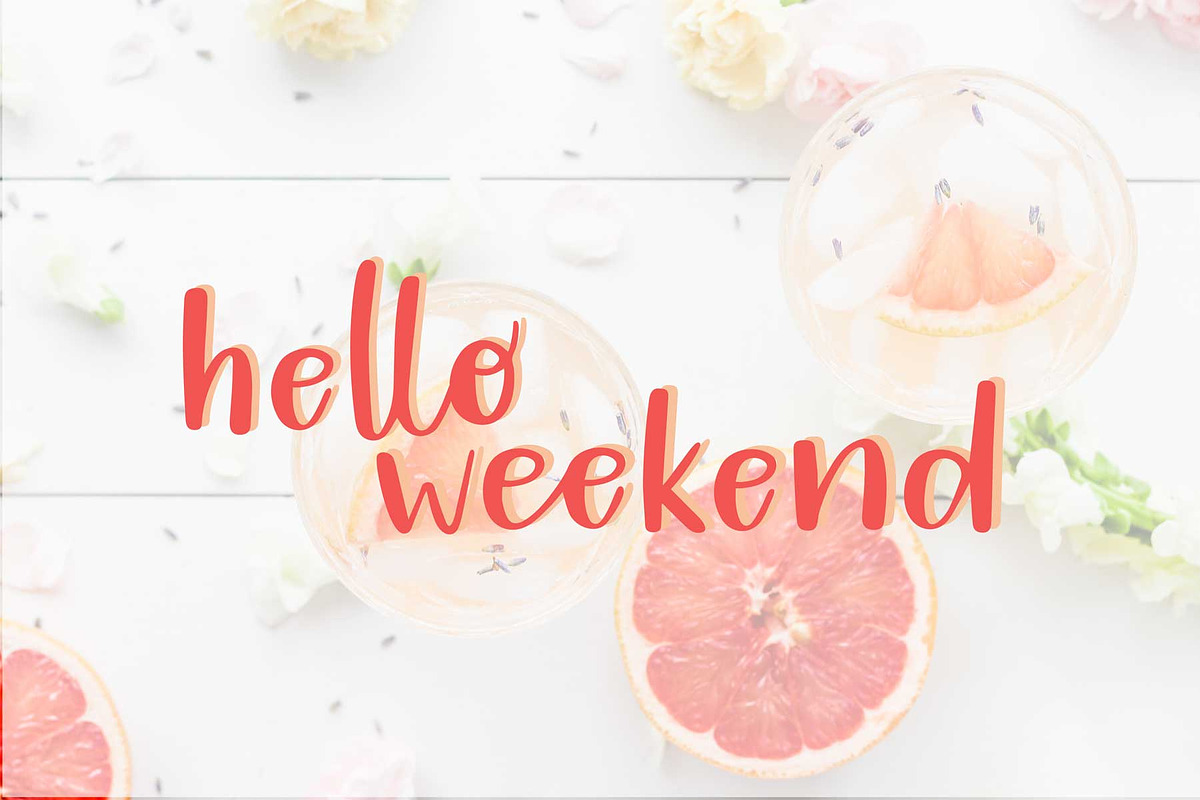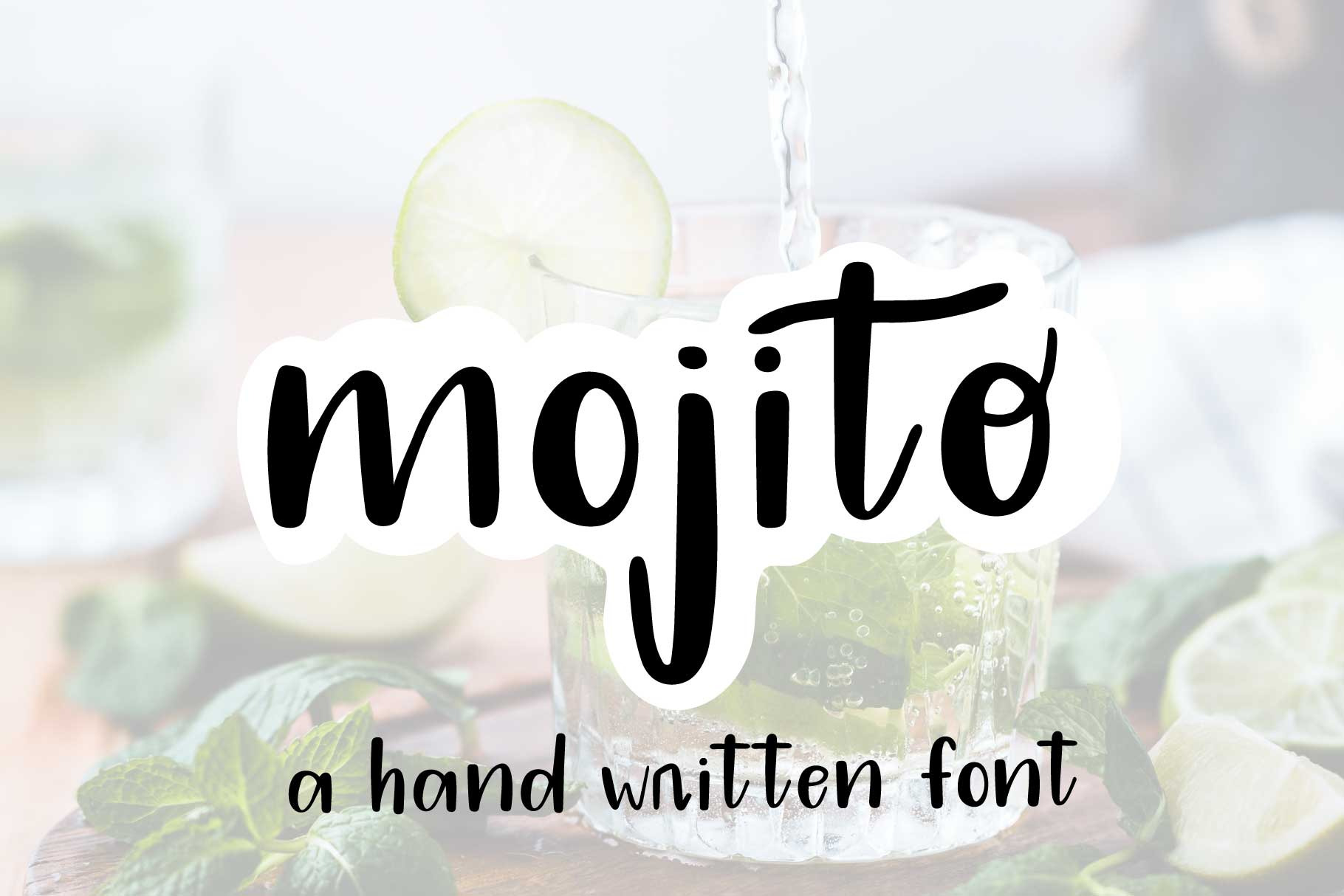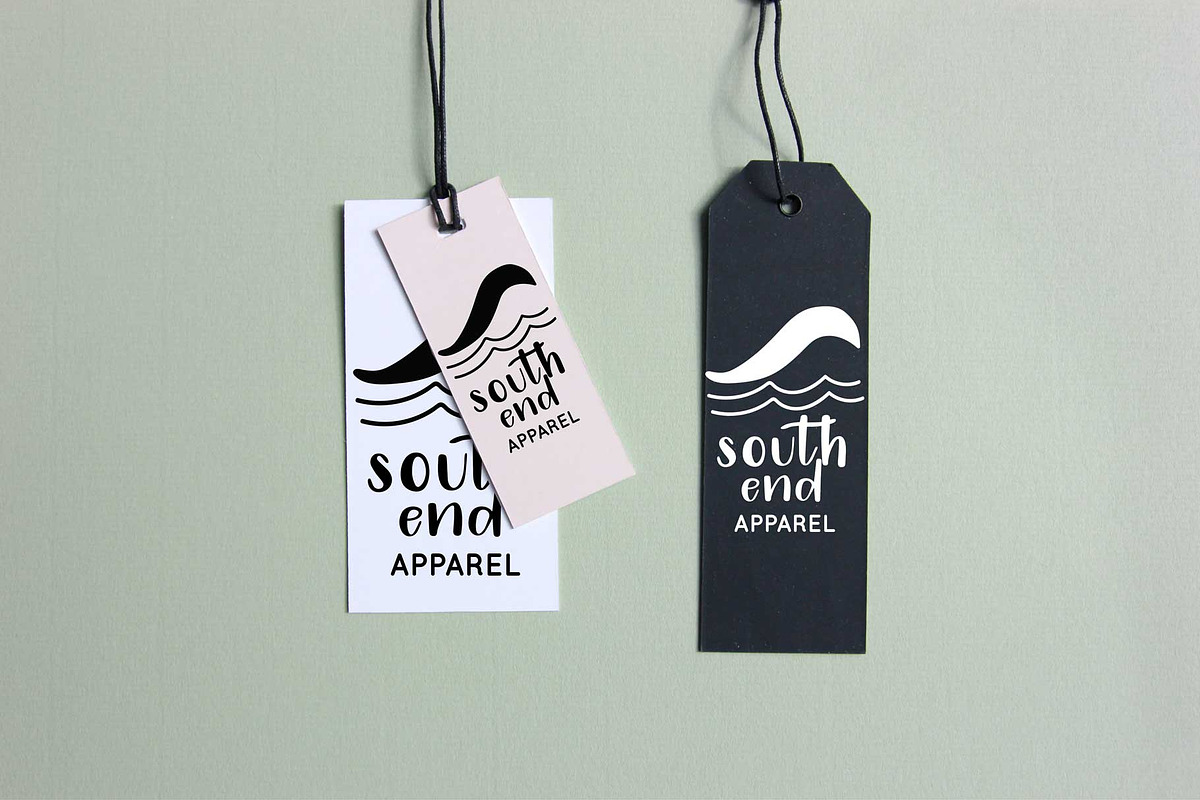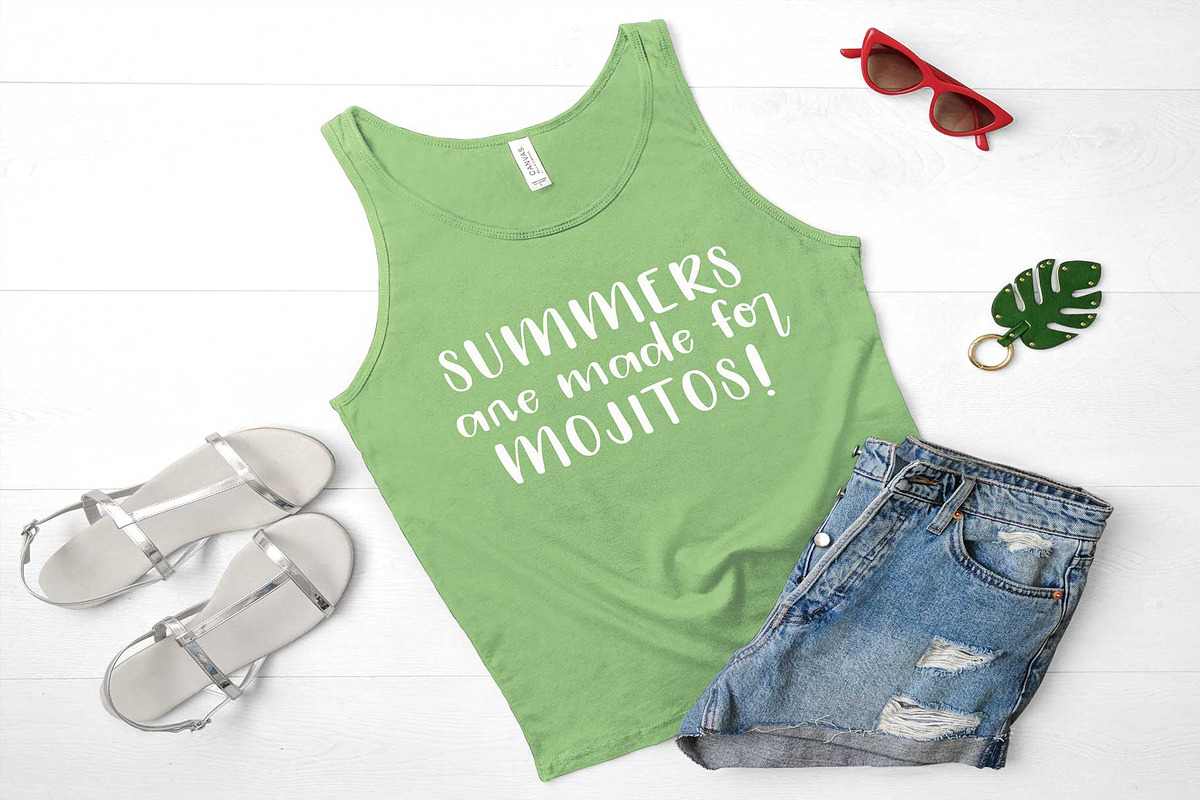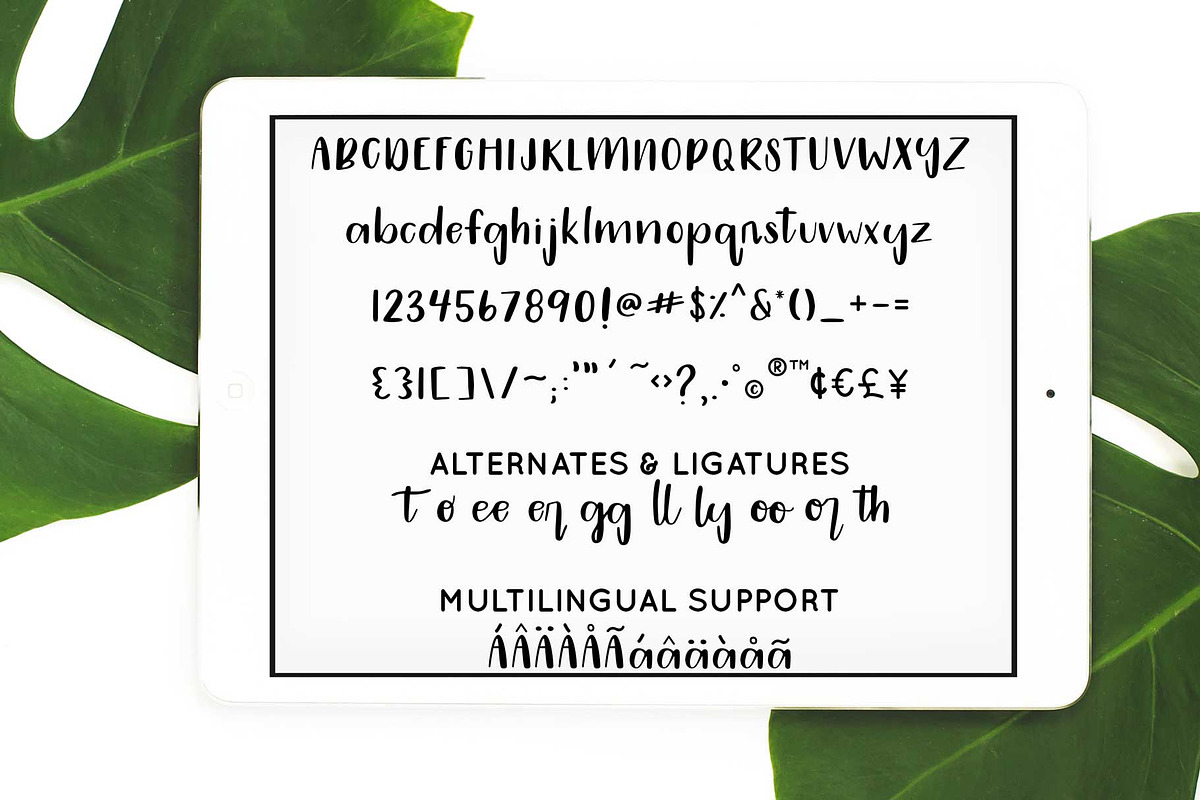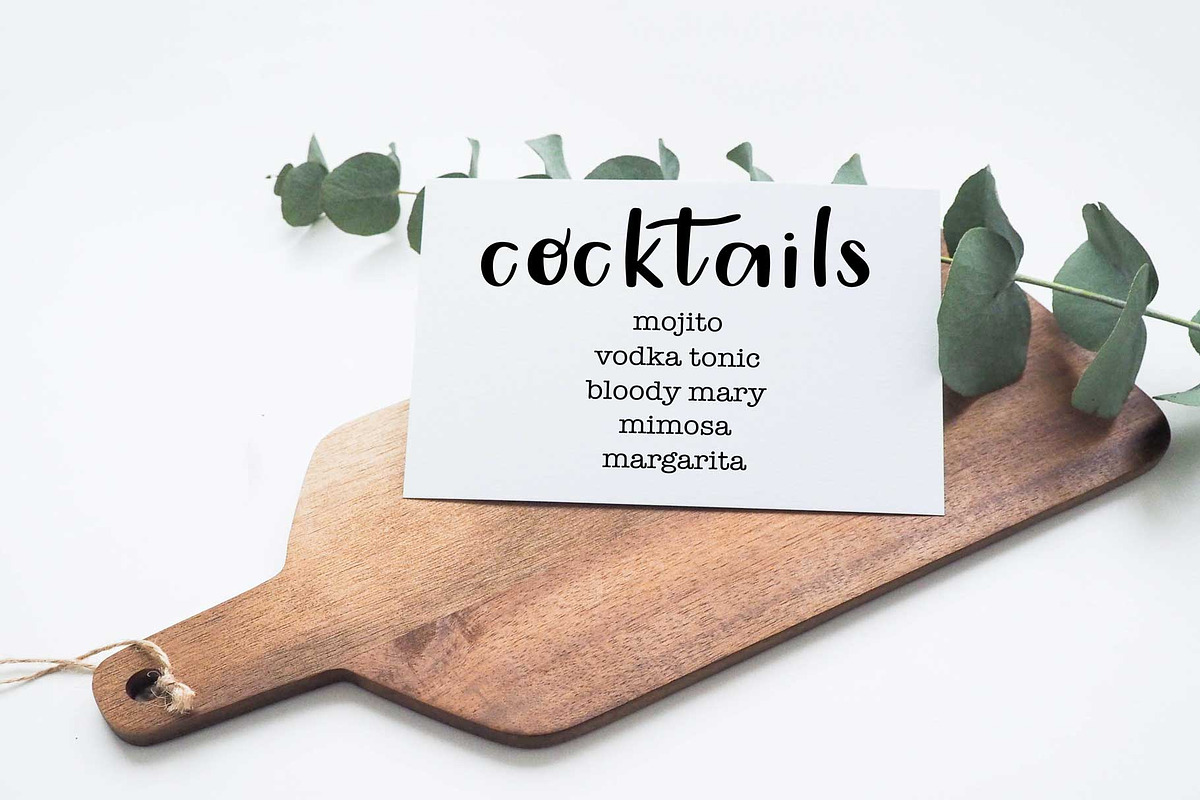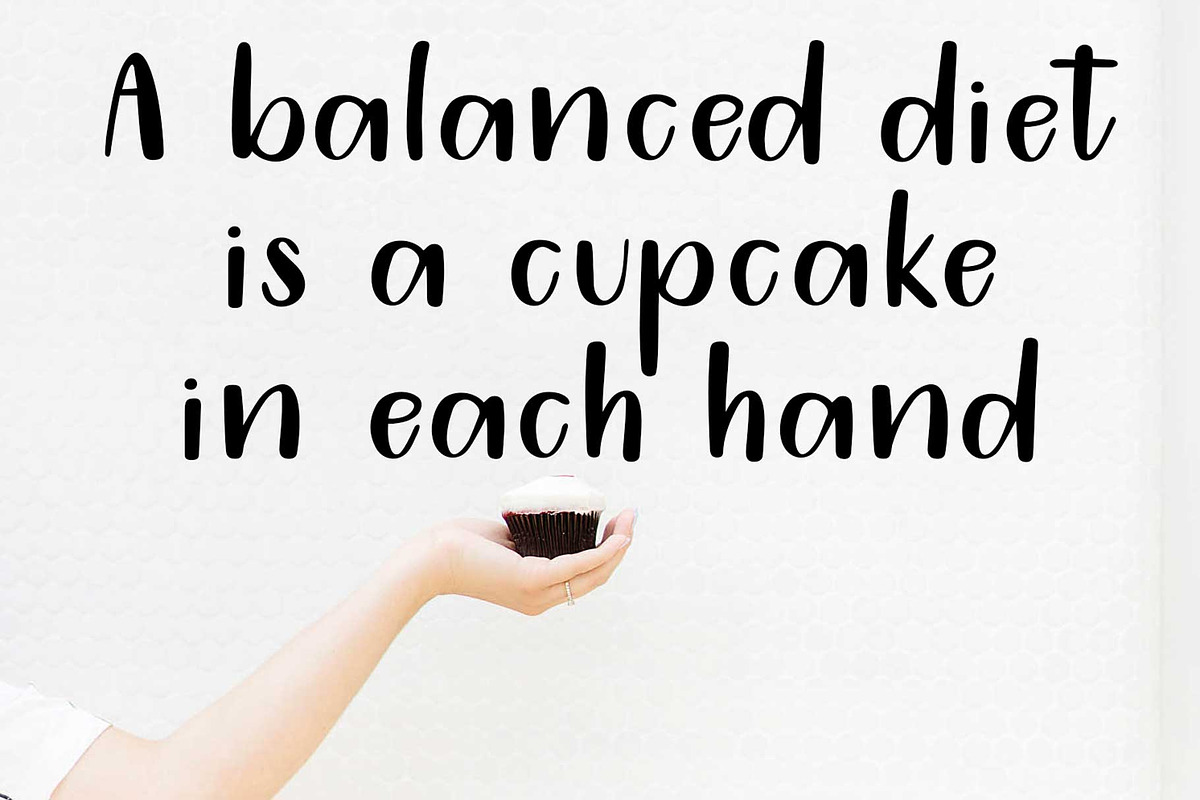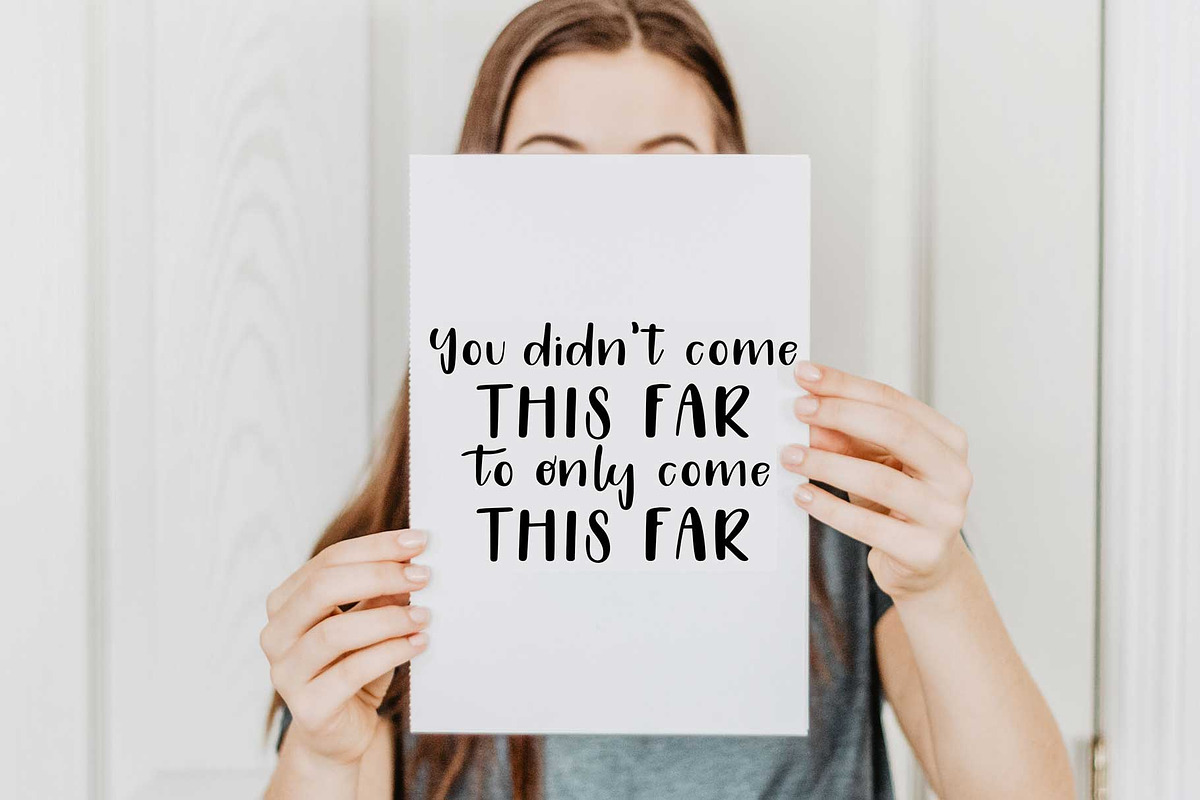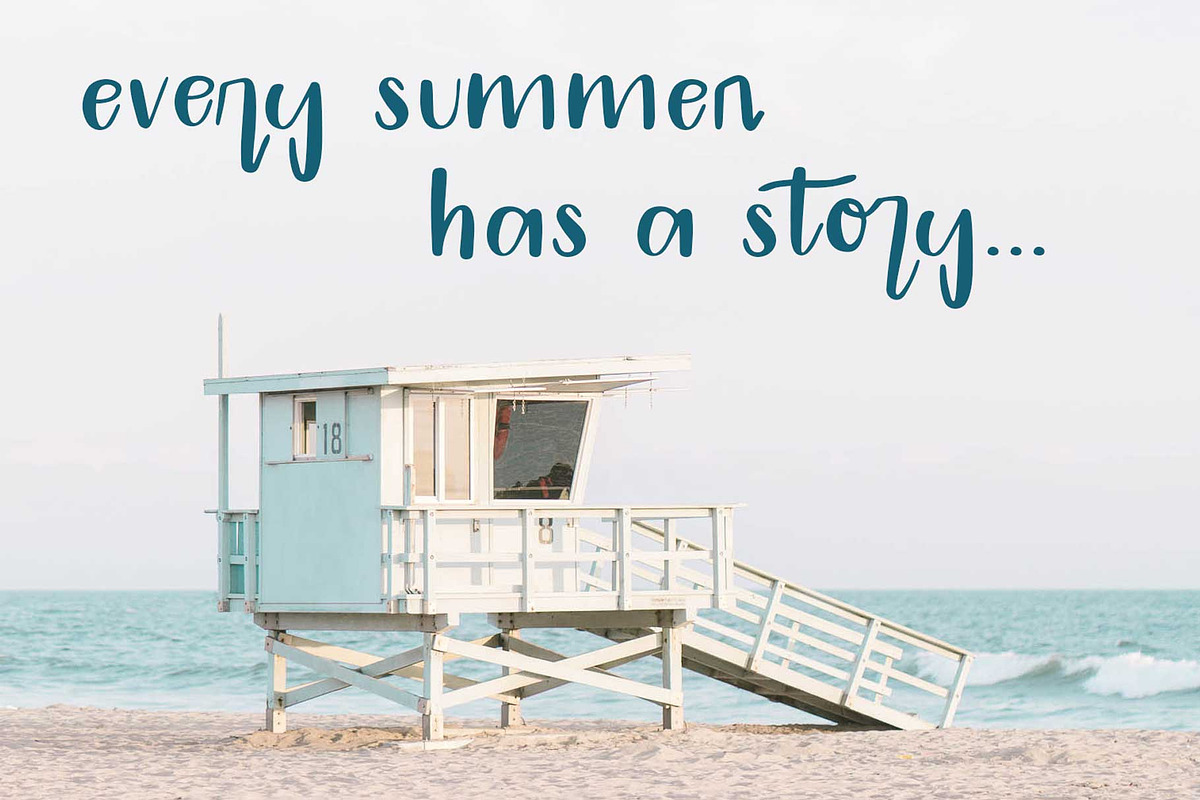
Mojito Hand Written Font
Mojito is a fun hand-written san serif font. Its casual style makes it perfect for logos, branding, greeting cards, SVG files, blog headers, and more.
This font contains 2 alternate characters and 8 ligatures, allowing you to fully customize your designs. It is PUA encoded, making it perfect for crafting with Silhouette, Cricut, or other personal cutting machines. You can see all alternates and ligatures in addition to example text using the alternates and ligatures in the images above. It also contains multilingual support for Western European languages.